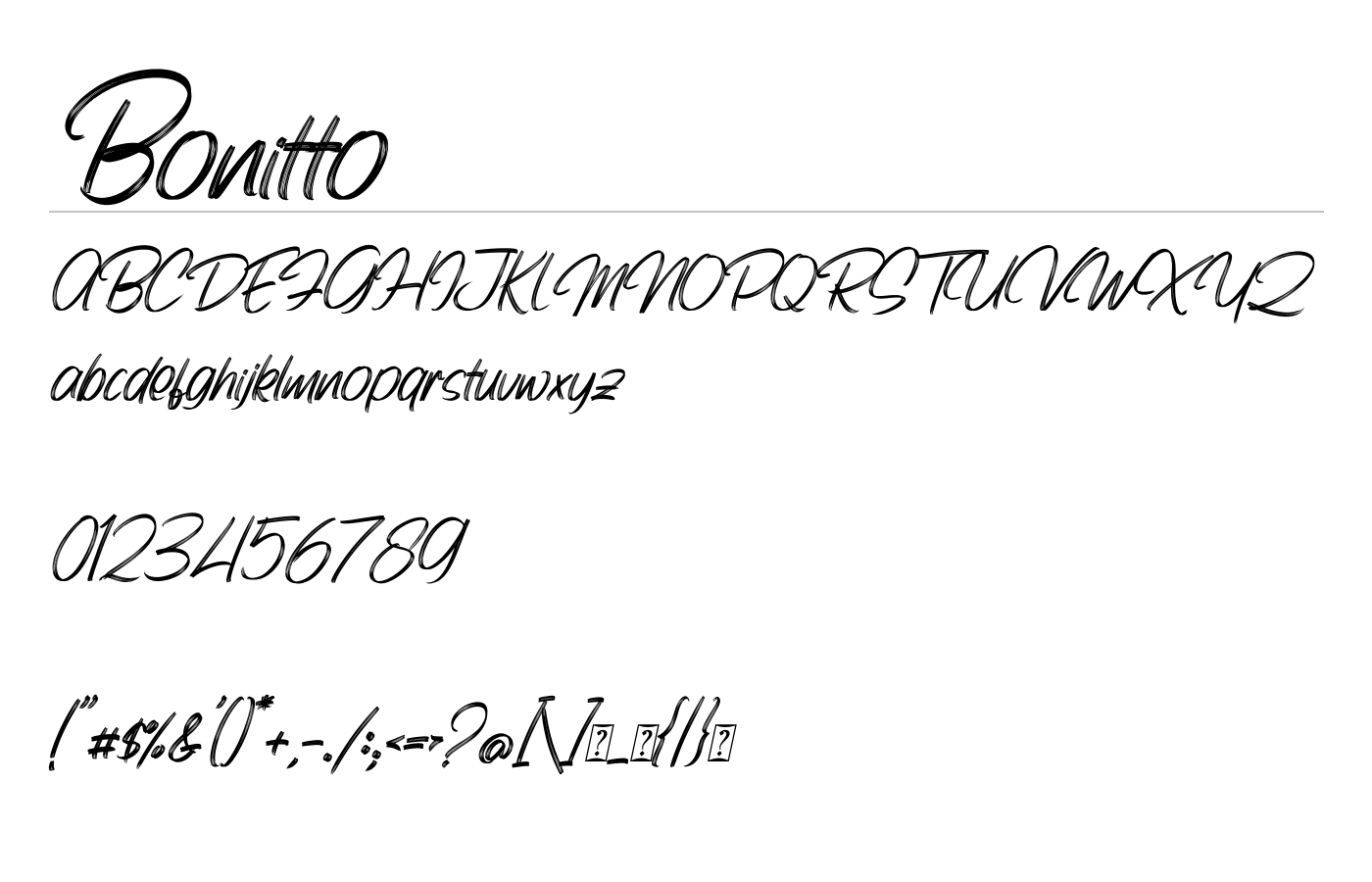
Bonitto is a lively and elegant script font that features a handwritten, brush-like style with smooth, flowing strokes and a slight slant. Its slender, slightly condensed letterforms with moderate contrast create a casual yet refined appearance, making it ideal for creative projects, branding, and invitations where a personal, artistic touch is desired. This font shines in headlines and decorative text, lending a unique, stylish character to designs that seek charm and sophistication.
Bonitto Font
About Bonitto Font
| Font family | Bonitto Font |
| Designer | Omotu Studio 2020 |